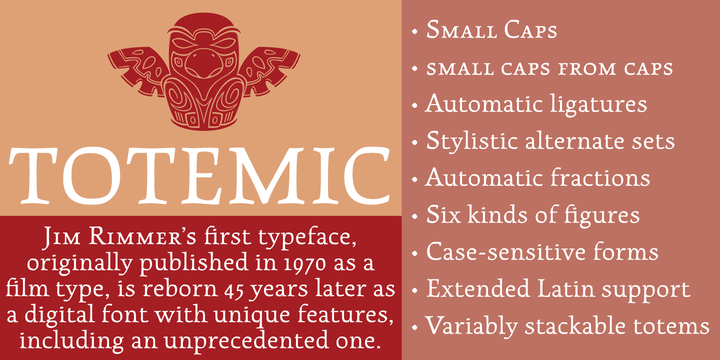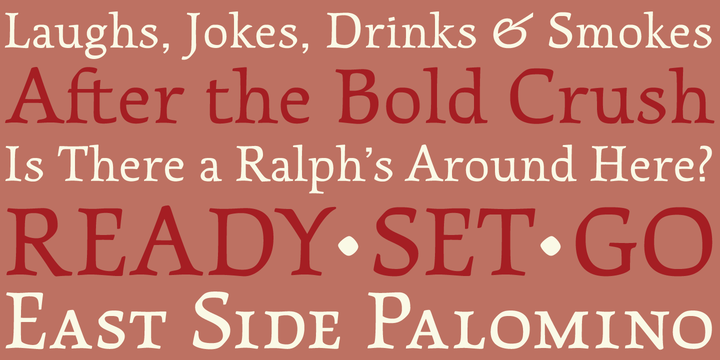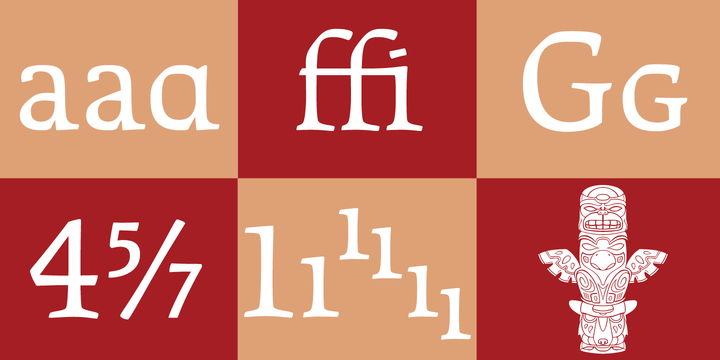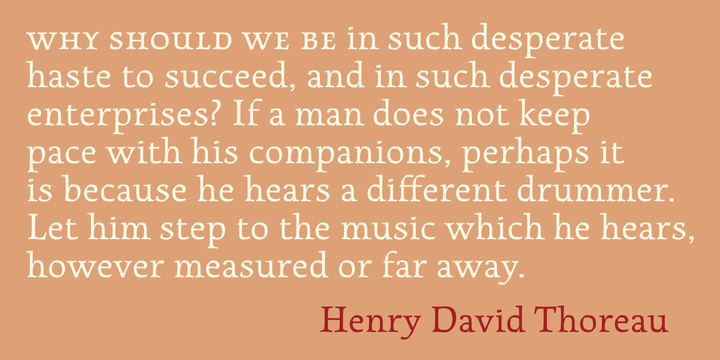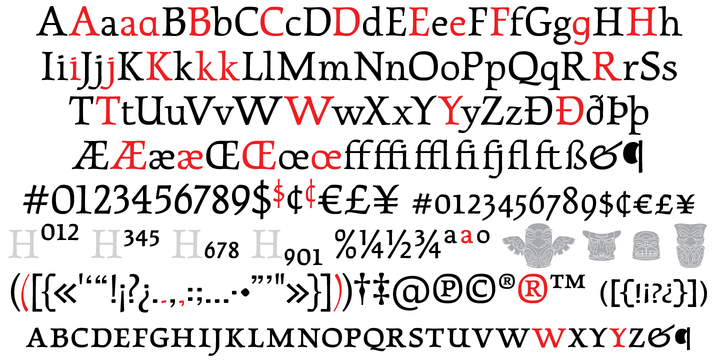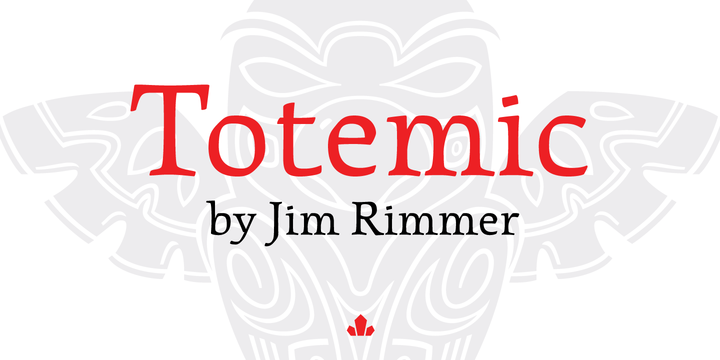
Totemic Font
About this font family
Jim Rimmer’s first typeface was originally published in 1970 as a basic film type alphabet through a small, independent type house in central California. Its sources of influence (now calligraphic type standards by Dair, Goudy and Zapf) are ones that remained with Jim for the rest of his career. If you squint at Totemic in just the right way, you can see some recognizable themes Jim would later flesh out and make his own in later works throughout his career as a type designer and printer